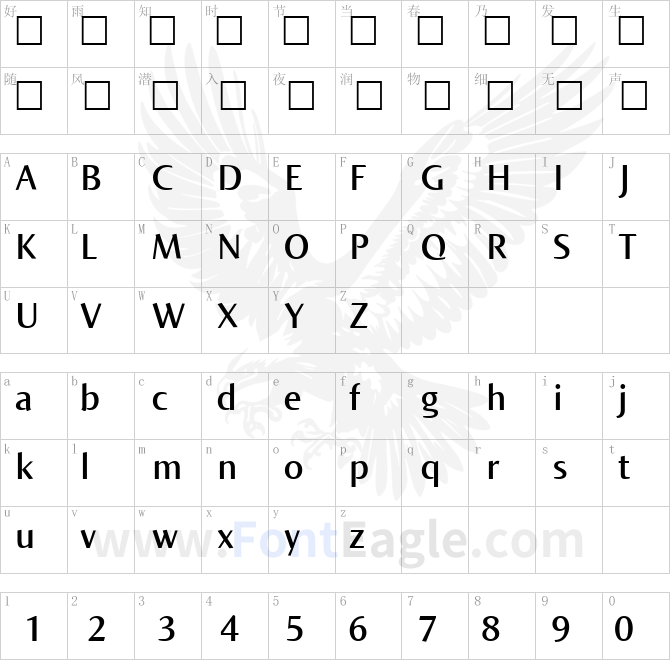
Norma-Bold is a great font, widely used in graphic design, single-page menu design, poster design and other fields, and is deeply loved by designers.Norma-Bold download.